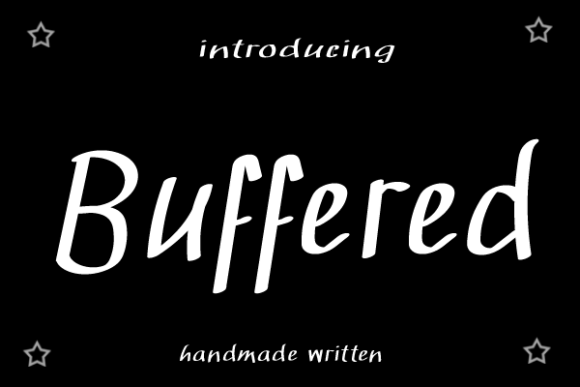
Unleash Your Creativity with the Timeless Buffered Font
Remember the moment when you stumbled upon the perfect font for your project? The one that made everything click into place, and you couldn’t wait to bring your vision to life? That’s the magic of finding the right font, and we’re excited to introduce you to the Buffered Font, a flowing handwritten font that’s sure to captivate your imagination.
With its elegant touch and distinct style, the Buffered Font is perfect for adding a personal touch to your designs. Whether you’re working on a branding project, creating a wedding invitation, or crafting a social media post, this font is sure to elevate your work and make it stand out. Its timeless appeal makes it a valuable addition to any designer’s toolkit.
Buffered Font Key Features
- Unique Character Set: Buffered Font features a unique character set, including a wide range of accents, ligatures, and special characters, making it ideal for languages that require complex typography.
- Multi-Lingual Support: Buffered Font is designed to support multiple languages, including English, Spanish, French, German, Italian, and many others, making it a versatile font for global applications.
- High-Quality Glyphs: Buffered Font features high-quality glyphs that are carefully crafted to ensure clear and legible text display, even at small font sizes.
Buffered Font Review
Overall, Buffered Font is a unique and interesting font that can bring a touch of elegance to your designs. ✨ I appreciate its sleek and modern aesthetic, which is perfect for creating a sophisticated look. The font’s curves and lines are well-balanced, making it easy to read and understand.
The Buffered Font has a wide range of applications, from headings to body text. It’s a great choice for designers who want to add a bit of personality to their work without going over the top. ✨ I also appreciate the font’s versatility, as it works well in both digital and print formats.
- ⚠️ The font may not be suitable for very small text sizes, as it can become difficult to read.
- ⚠️ Buffered Font may not be the best choice for headings that require bold, attention-grabbing text.
- ⚠️ The font’s unique design may not appeal to everyone’s taste, so it’s essential to consider your target audience before using it.
Overall, I think Buffered Font is a solid choice for designers who want to add a touch of sophistication to their work. While it has some limitations, it’s a great option for creating elegant and modern designs.
Use Buffered Font to create a distressed or vintage look in your designs.
It’s particularly effective in titles, headings, and quotes.
Alternatives to Buffered Font
Open Sans is a clean and modern sans-serif font designed by Steve Matteson. It is highly legible and versatile, making it suitable for digital products, websites, and mobile apps. Open Sans is a great alternative to Buffered Font when you need a font that is both modern and readable.
Compared to Buffered Font, Open Sans is more modern and has a slightly more condensed feel, making it ideal for digital interfaces.
Lato is a sans-serif font designed by Łukasz Dziedzic. It is highly customizable and has a unique feel that works well in both digital and print applications. Lato is a great alternative to Buffered Font when you need a font that is both elegant and modern.
Compared to Buffered Font, Lato has a more elegant feel and is more suitable for branding and marketing materials.
Monterssor is a sans-serif font designed by Julieta Ulanovsky. It is inspired by the urban environment of Buenos Aires and has a unique, geometric feel. Montserrat is a great alternative to Buffered Font when you need a font that is both modern and edgy.
Compared to Buffered Font, Montserrat has a more geometric feel and is more suitable for digital products that require a bold, modern look.